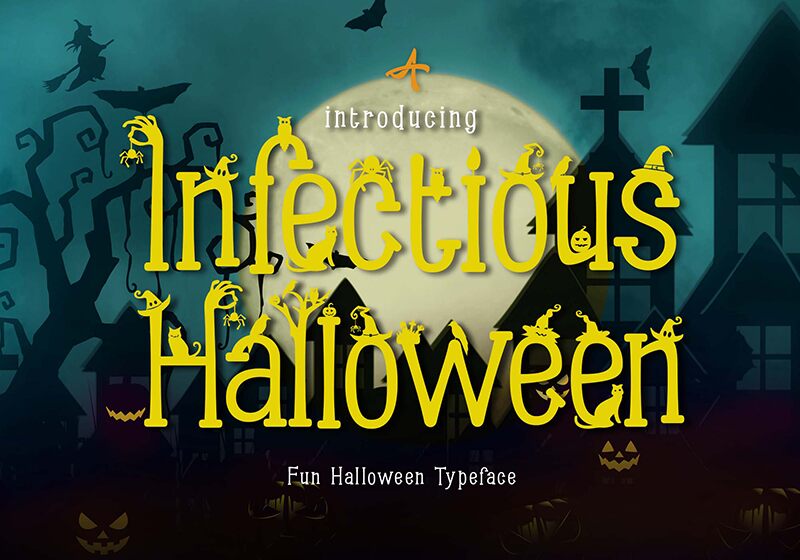
Infectious Halloween, a spellbinding creation by Ardyana Putra, is the perfect font for all your haunting holiday projects. With its eerie charm and semi-light weight, this font brings an enchanting touch to any Halloween-themed design. The condensed width adds a sense of mystery and intensity to your spooky invitations, wicked posters, and chilling party flyers. Unleash your creativity with Infectious Halloween and bewitch your audience with its captivating presence. Let this font take you on a thrilling journey into the dark realm of Halloween-inspired designs.
Infectious Halloween